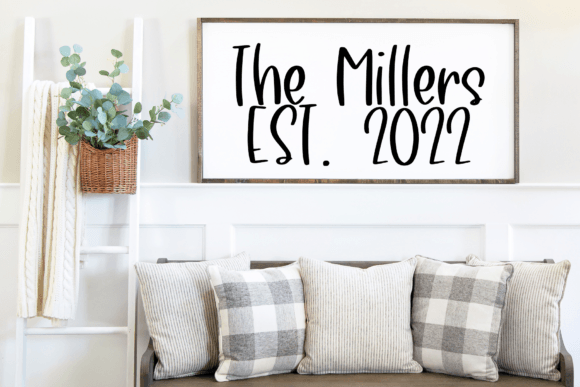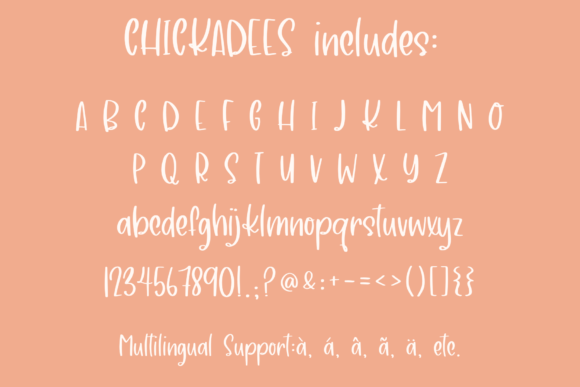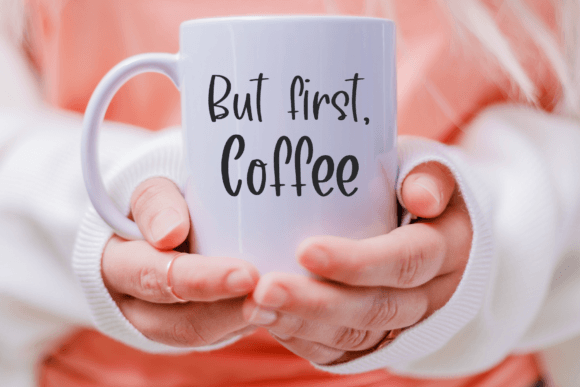
Chickadees Font
This cute handwritten font is perfect for fun logos, greeting cards, t-shirt design, stickers, social media, crafts, and much more.Chickadees is one of our sweet handwriting fonts for cricut, illustrator, procreate, or any program that supports open type fonts.What’s Included: ————————————————————————————————————- Chickadees TF Chickadees TTF ————————————————————————————————————- Check out our shop for other handwritten fonts, bundles, and graphics